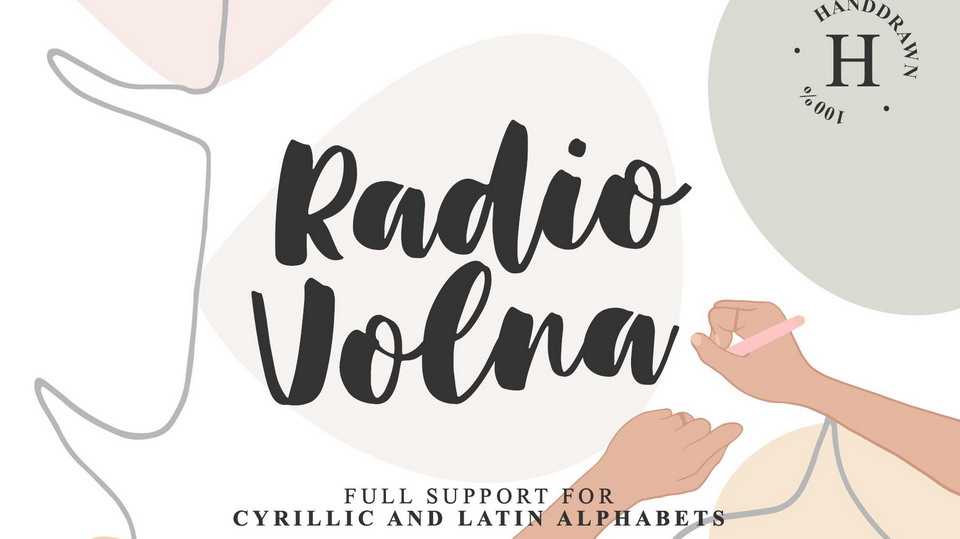
Download Radio Volna font, a classic calligraphy with a thick brush. The font is super versatile and suitable for any project. Classic never gets old, your design will look fresh always.